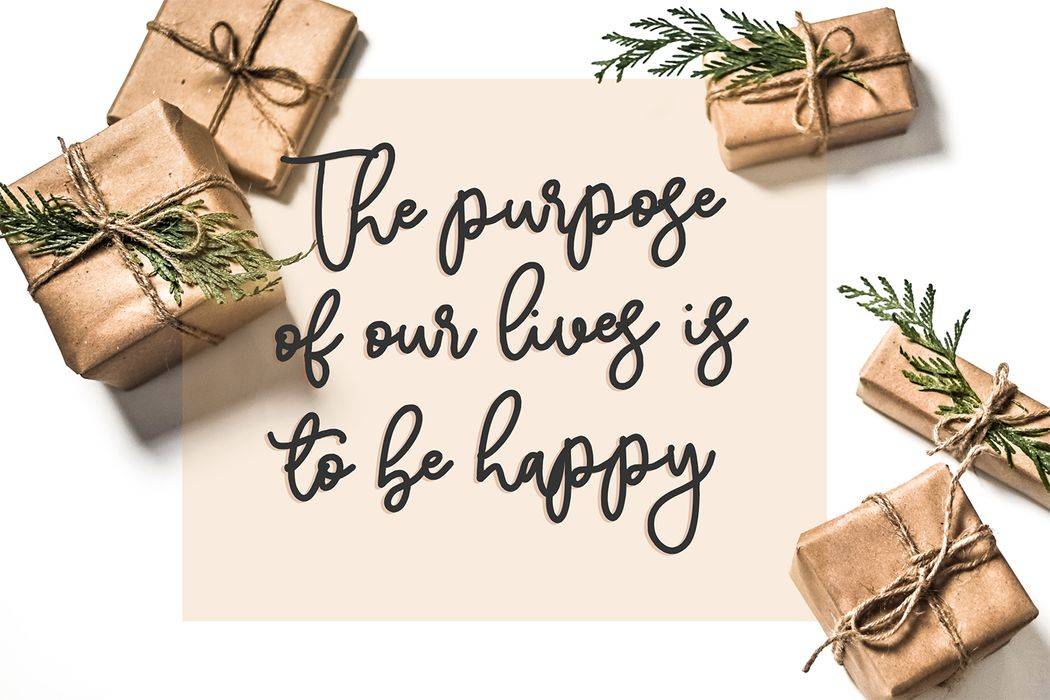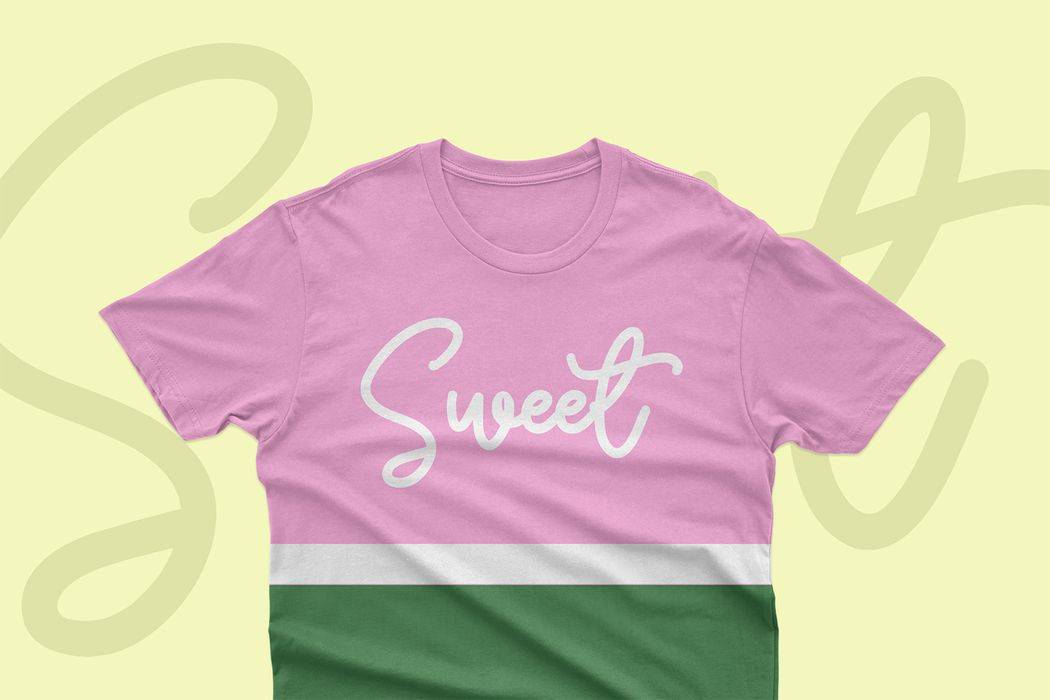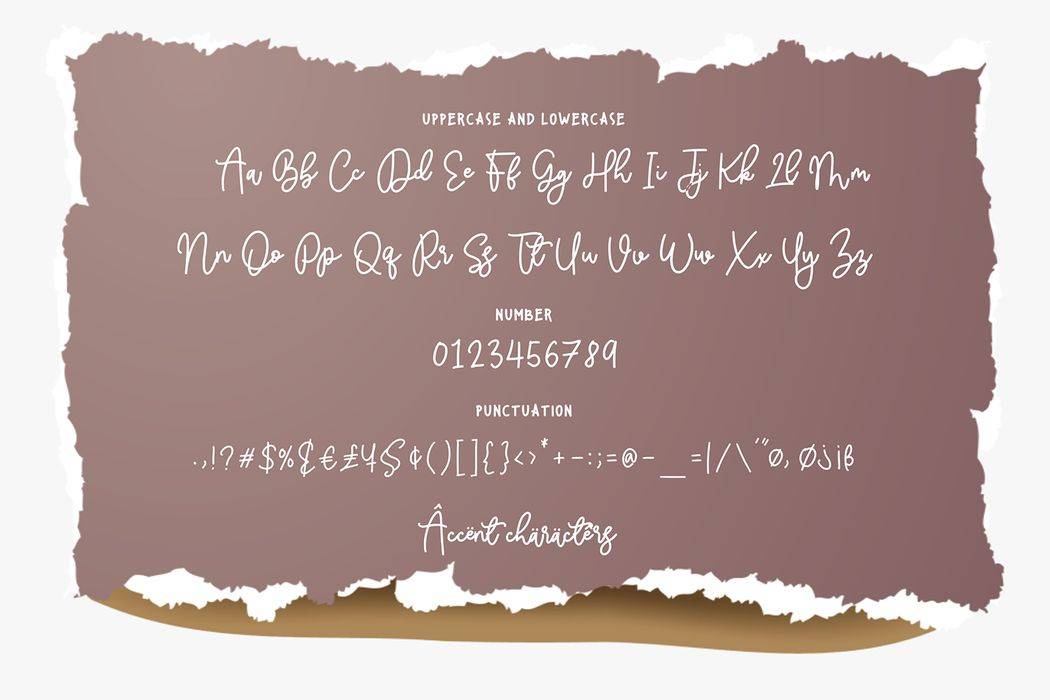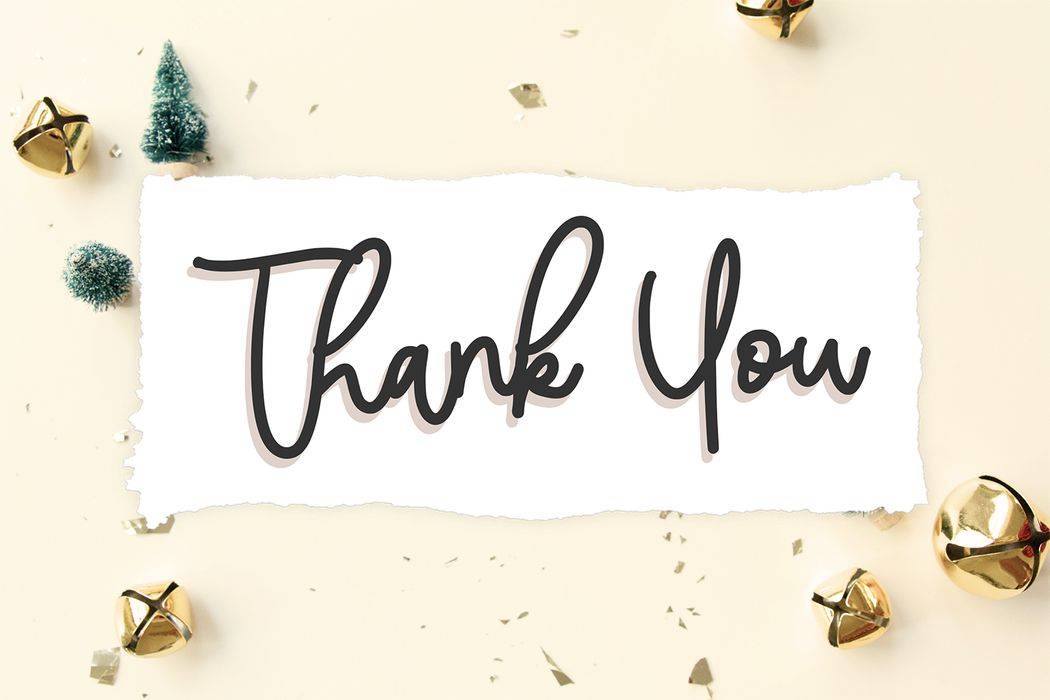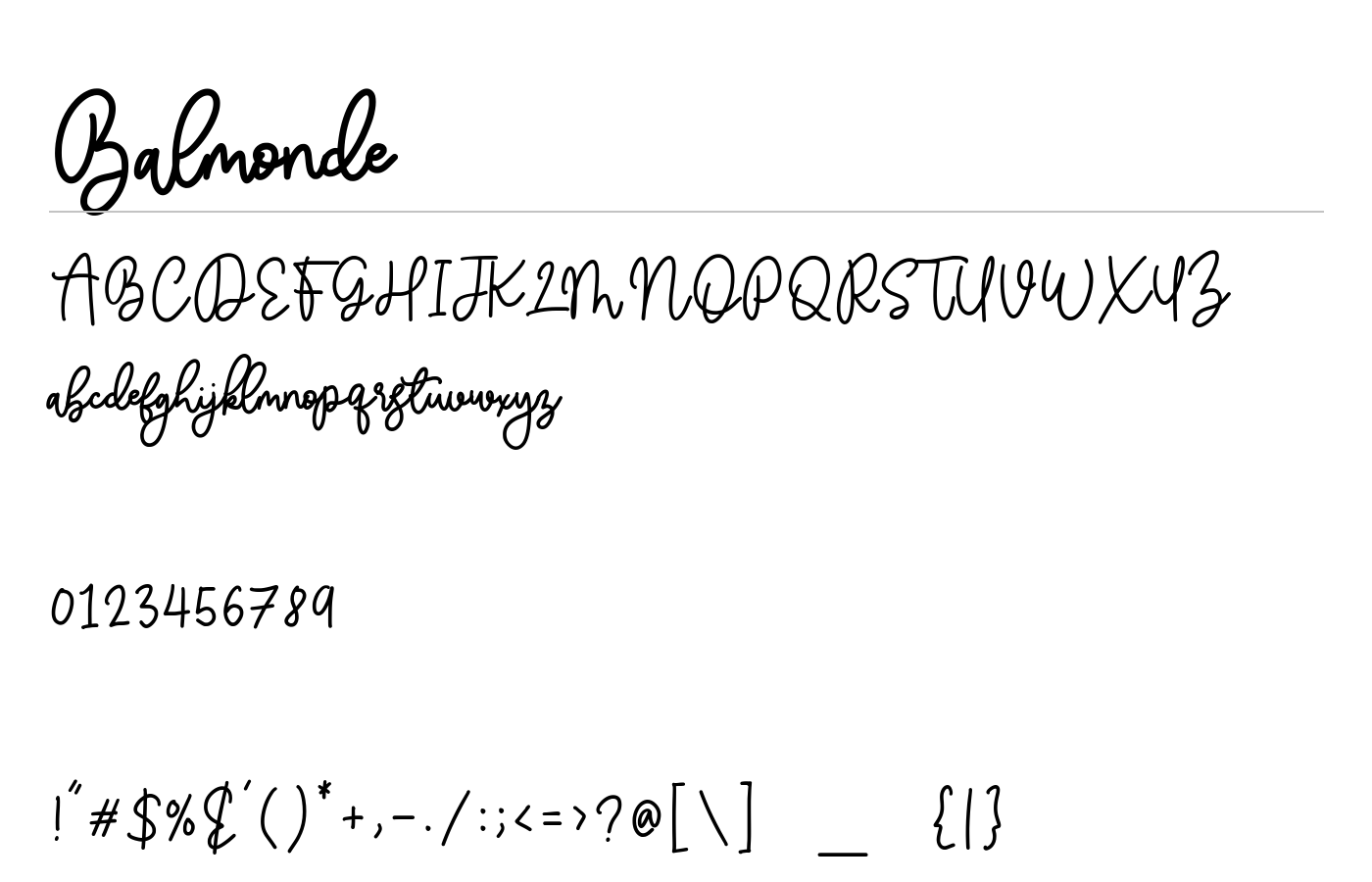
Balmonde is a lively handwritten script font with a playful and casual feel. Its thin, slightly irregular strokes and natural flow make it ideal for adding a personal, friendly touch to designs, perfect for invitations, logos, and creative projects. This font combines charm and legibility, bringing warmth and approachability to any design.
Balmonde Font
About Balmonde Font